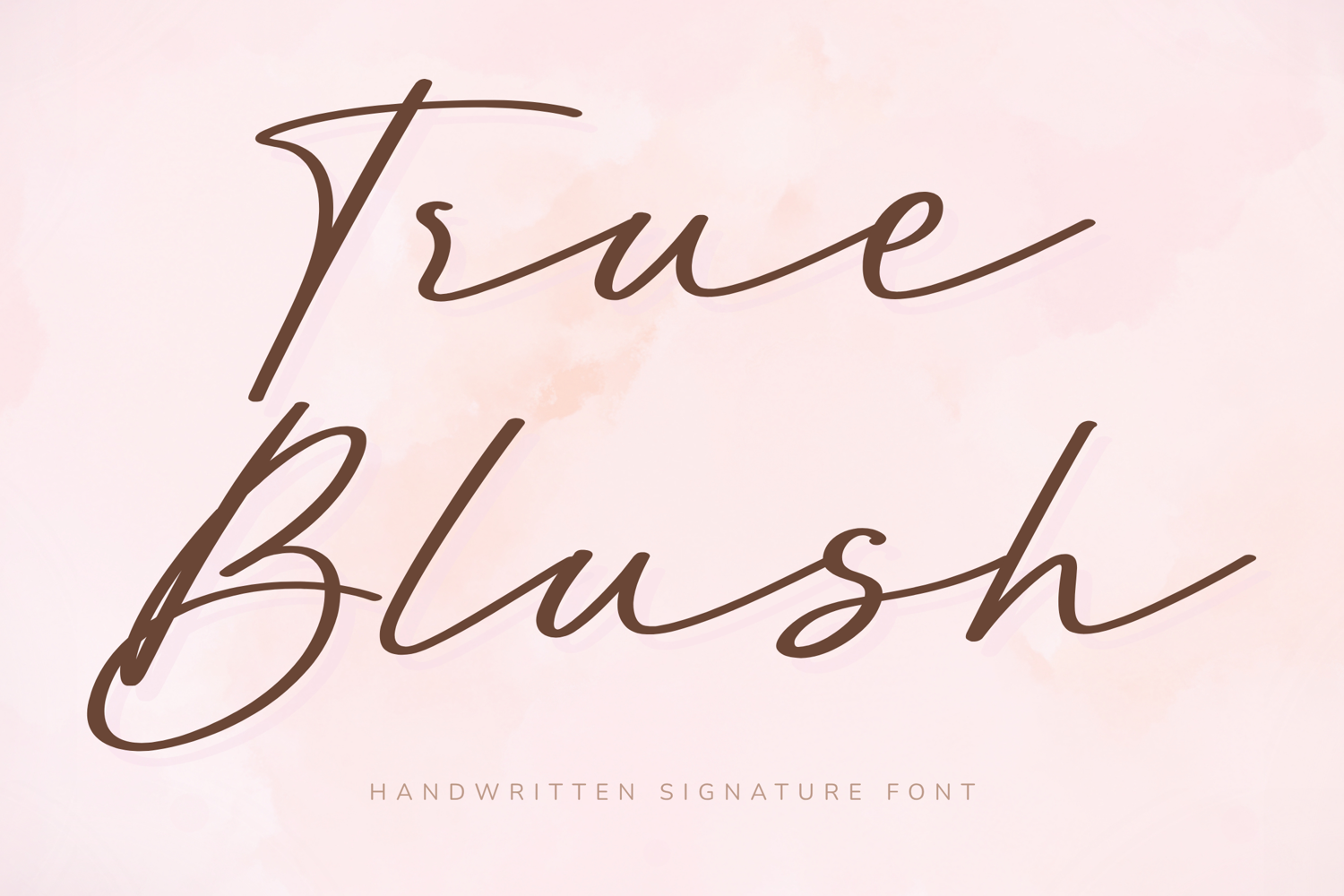
True Blush - Handwritten Signature Font
True Blush is a graceful and sophisticated handwritten signature font that captures the essence of feminine elegance and soft romantic charm. With its flowing strokes, refined letterforms, and natural pen movement, this font delivers a luxurious handwritten look perfect for modern branding.
Inspired by the gentle warmth of a blush tone and the authenticity of true handwritten signatures, True Blush is ideal for logos, wedding invitations, photography watermarks, cosmetic packaging, and boutique branding.
Key Features:
Uppercase and lowercase letters
Numbers and punctuation
Elegant handwritten signature style
Thin and delicate strokes
Natural flowing connections
Sophisticated feminine appearance
Perfect For:
Luxury logos
Signatures
Wedding invitations
Photography watermarks
Beauty packaging
Boutique branding
Social media graphics
Fashion labels
Business cards
Best Use Cases:
Beauty brand logos
Wedding stationery
Boutique packaging
Logo & Branding
Photography logos
Instagram content
Brand Mood:
Romantic
Feminine
Elegant
Soft
Luxurious
Authentic
Design Style:
True Blush features a refined handwritten signature aesthetic with airy curves and smooth pen strokes. The font feels soft, romantic, and effortlessly luxurious, making it perfect for brands that want an authentic and elegant look.